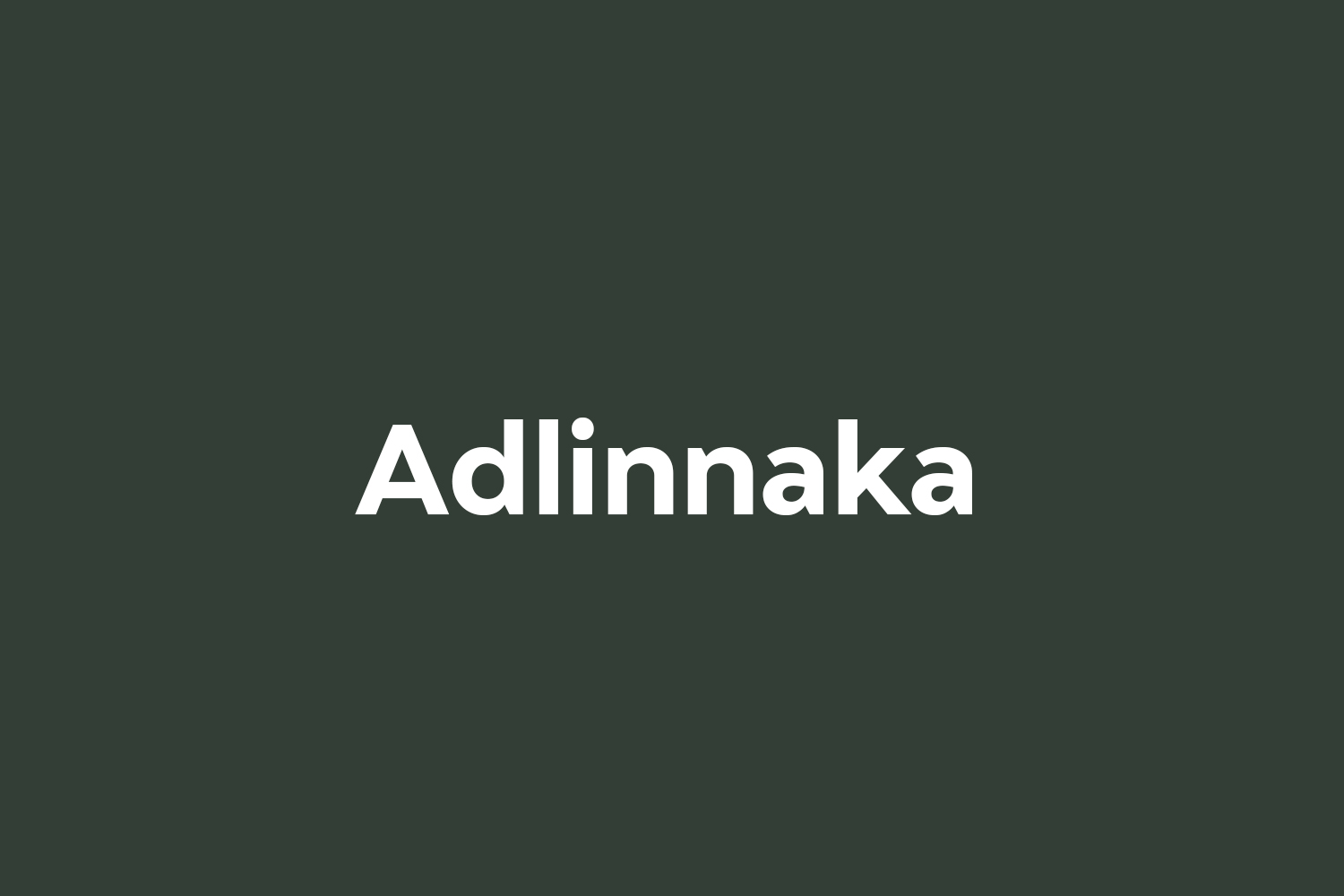
Adlinnaka Free Font means impartial; fair; balance. Adlinnaka is a concept of dualism, describing how seemingly opposite or contrary forces may actually be complementary, interconnected, and interdependent in the natural world, and how they may give rise to each other as they interrelate to one another. The universe creates itself out of primary chaos of material energy, organized into the cycles of negative and positive and formed into objects and lives. In graphic design, everything needs to be balanced.
Designed by Harmnessless Type